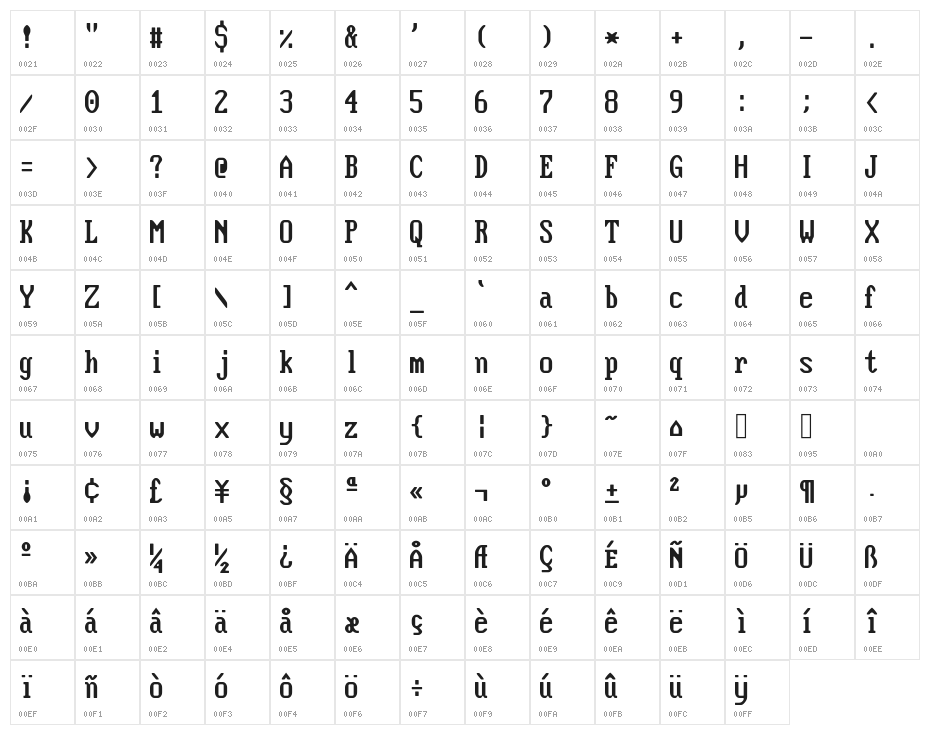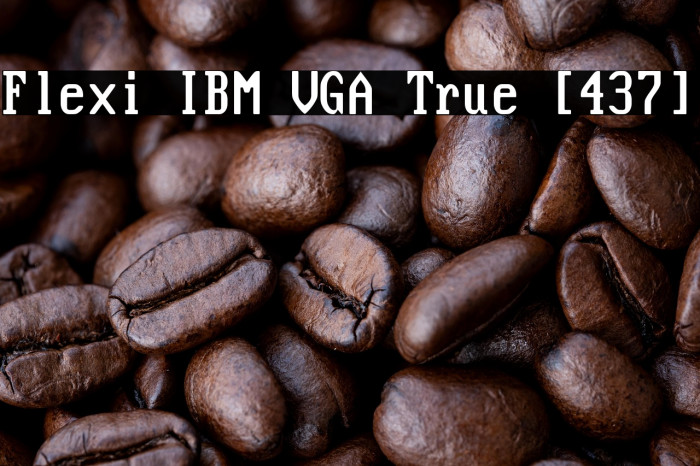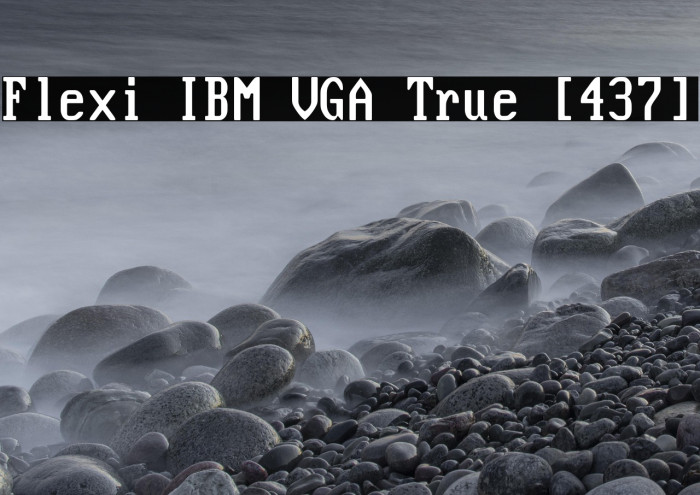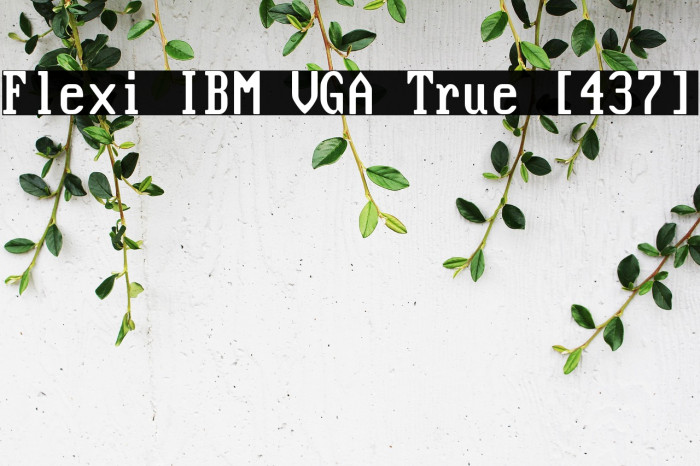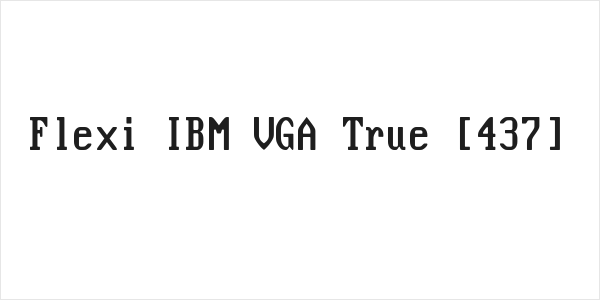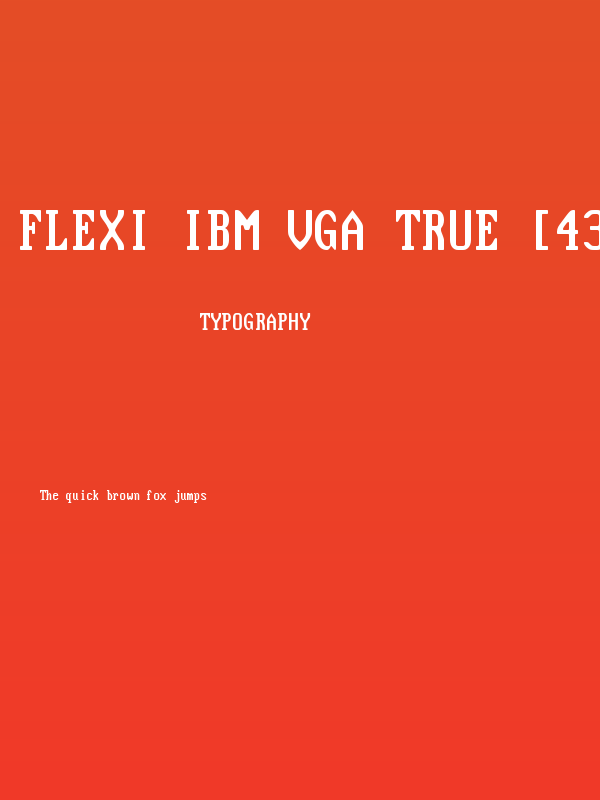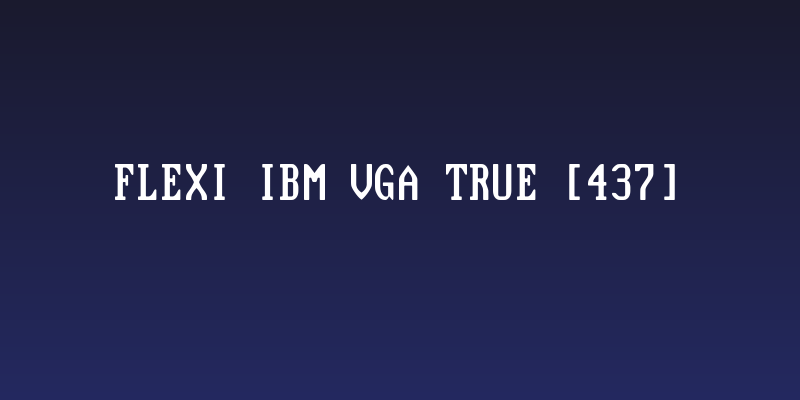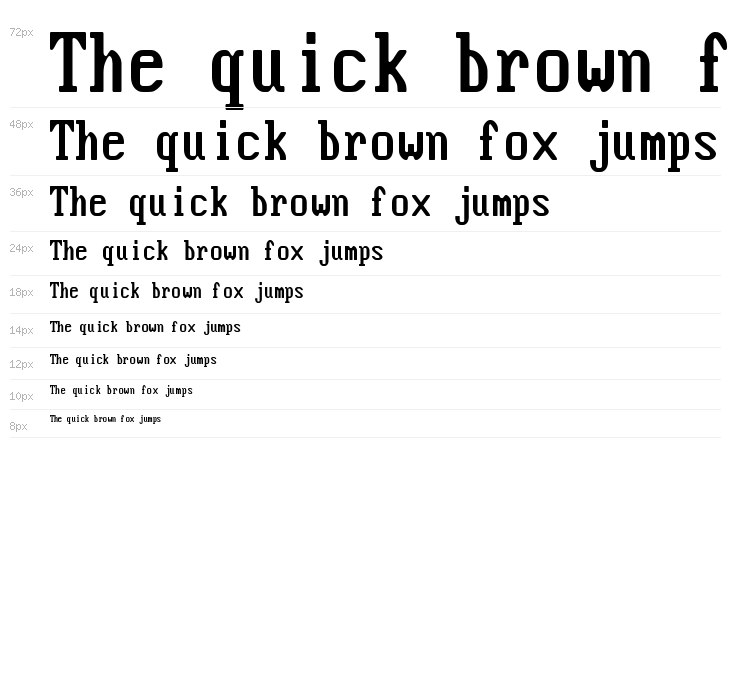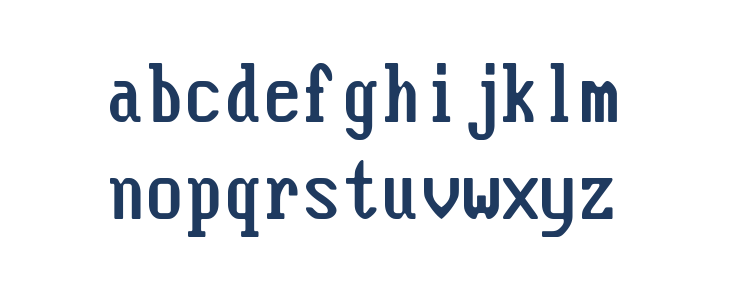
Flexi IBM VGA True [437] Font
Flexi IBM VGA True [437] Description
This font features a bold, monospaced design reminiscent of classic typewriter and early computer fonts. It has a strong, mechanical feel with uniform character widths, making it ideal for coding and technical documents. The uppercase letters are tall and slightly condensed, while the lowercase letters maintain a consistent height, enhancing readability. The numerals are clear and distinct, ensuring they stand out in any context. Special characters are well-defined, supporting a wide range of uses. The overall style is utilitarian and functional, with a hint of retro charm.
| Overall Style | Retro, Utilitarian |
| Use Case | Coding, Technical documents, Retro designs |
| Proposed Projects | Ideal for coding environments, technical documentation, retro-themed designs, and any project requiring a clear, monospaced typeface. |